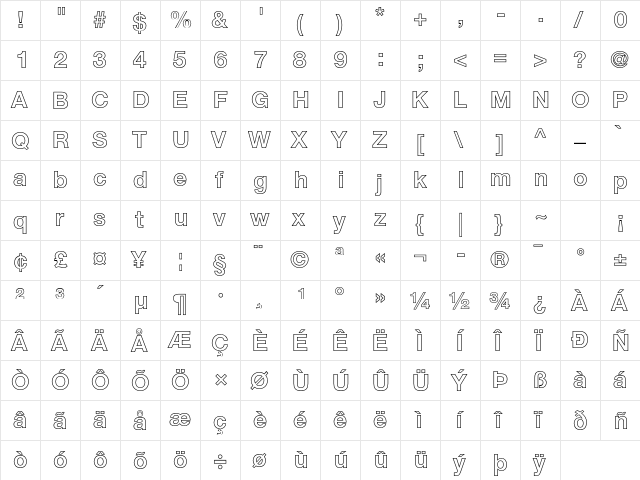
Helvetica Neue LT Pro 75 Bold Outline
| Designer | Linotype Library GmbH |
Design Context for Helvetica Neue LT Pro Typeface
Helvetica Neue LT Pro brings ornamental detail and strong personality to headlines and identities, where visual impact matters more than quiet functionality. Its bold stroke weight gives it real presence on the page.
Font Pairing: Pair with a clean neutral sans-serif for body copy to let Helvetica Neue LT Pro's character lead without overwhelming the composition.
Pro Tip: Treat Helvetica Neue LT Pro as the centrepiece of your typographic hierarchy. One strong heading set in a decorative face can carry an entire layout.